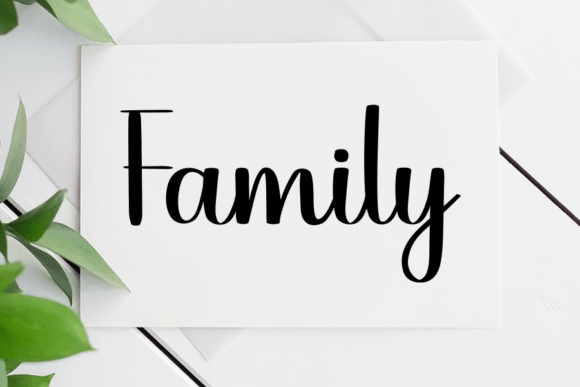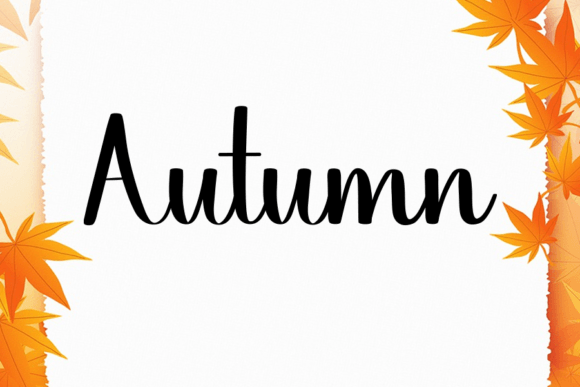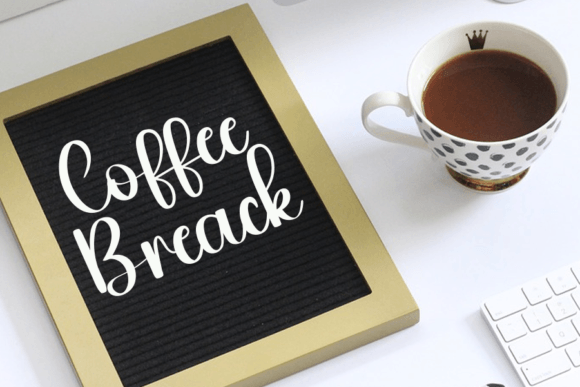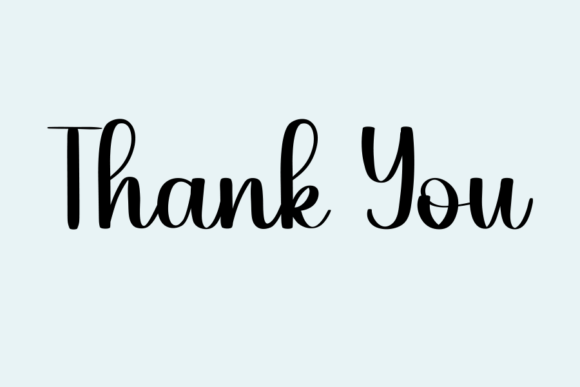
Rushing Font
Add a sweet and adorable touch with the Rushing font. This versatile handwritten script is perfect for a wide range of applications. From greeting cards to headlines, it adds a neat and natural feel to your projects.
The Rushing font works well for many creative uses. You can use it for invitations, branding, social media posts, posters, and more. Its charming style brings warmth and friendliness to your designs.
Each character is crafted with smooth and flowing strokes. This creates a polished yet casual look. The font balances readability with artistic flair, making it great for logos, quotes, headlines, and decorative text.
Despite its adorable style, the Rushing font remains readable at different sizes. Whether used for bold titles or subtle accents, it adapts perfectly. Its versatility makes it suitable for many creative projects.
Using this font will help your designs stand out. It adds a friendly and natural vibe. If you want your work to look charming and polished, the Rushing font is an excellent choice.